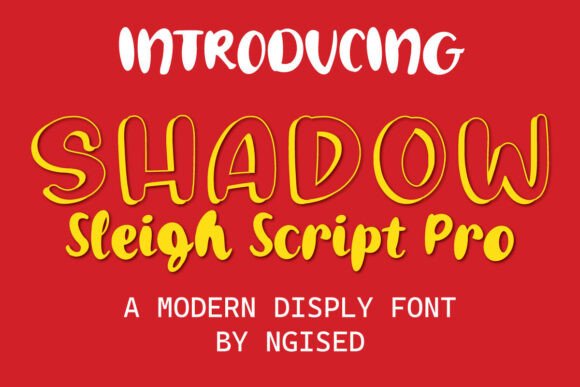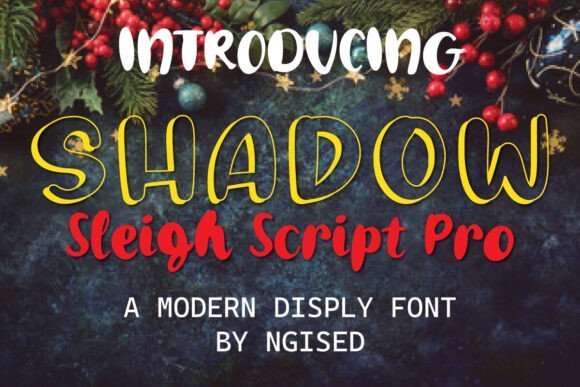
Introduction to Shadow Sleigh Script Pro Font
Shadow Sleigh Script Pro is a whimsical decorative font inspired by the magic of Christmas.
Featuring elegant and flowing line art with a shadow effect, this font is perfect for creating festive and eye-catching designs Its unique style blends traditional script with playful details, making it ideal for holiday cards, invitations, ornaments, and seasonal dΓ©cor.
Key Features of Shadow Sleigh Script Pro Font
Why Choose Shadow Sleigh Script Pro Font?
Shadow Sleigh Script Pro Font offers exceptional quality and versatility, making it a valuable addition to your design toolkit. Whether you’re creating for personal projects or commercial use, Shadow Sleigh Script Pro Font delivers professional results.